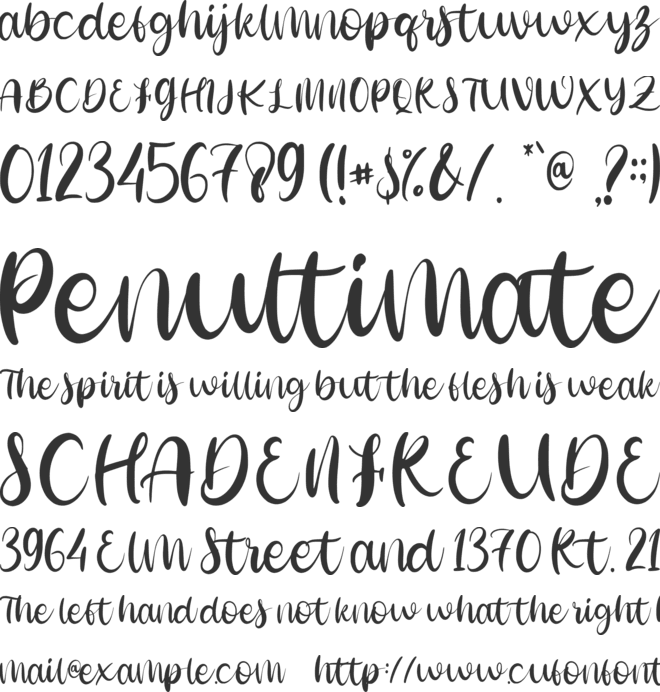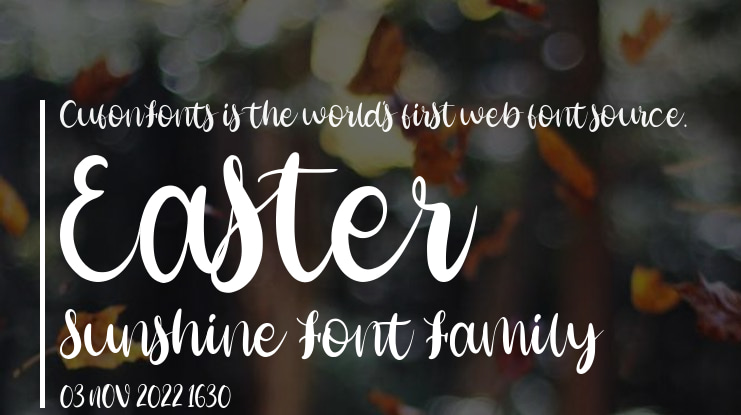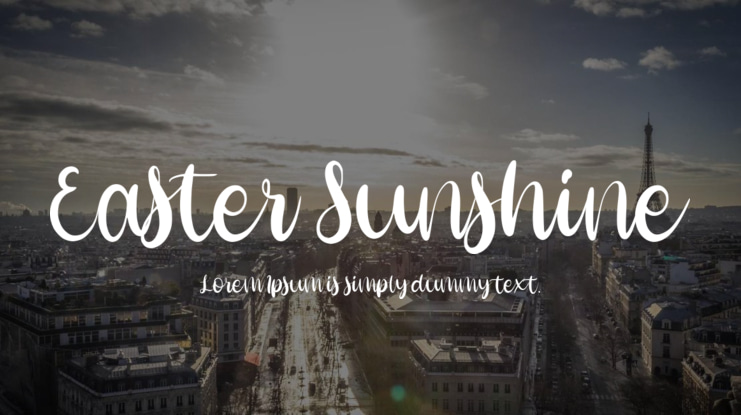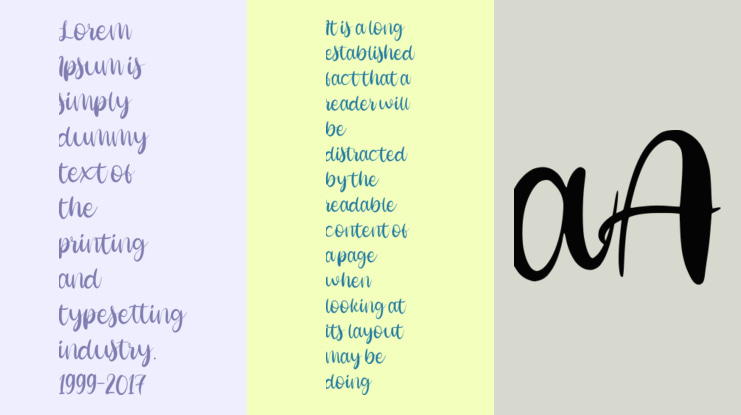
Easter Sunshine Font
Easter Sunshine is a charming handwritten typeface that breathes out the essence of romance, making it an ideal choice for your Easter season project. Easily enhance your logo, branding, and inspirational quotes with its unique and timeless charm.
This elegant font is PUA encoded, giving you easy access to the entire glyph and scratches. With Easter Sunshine, your Easter design tasks become easier and aesthetically pleasing.